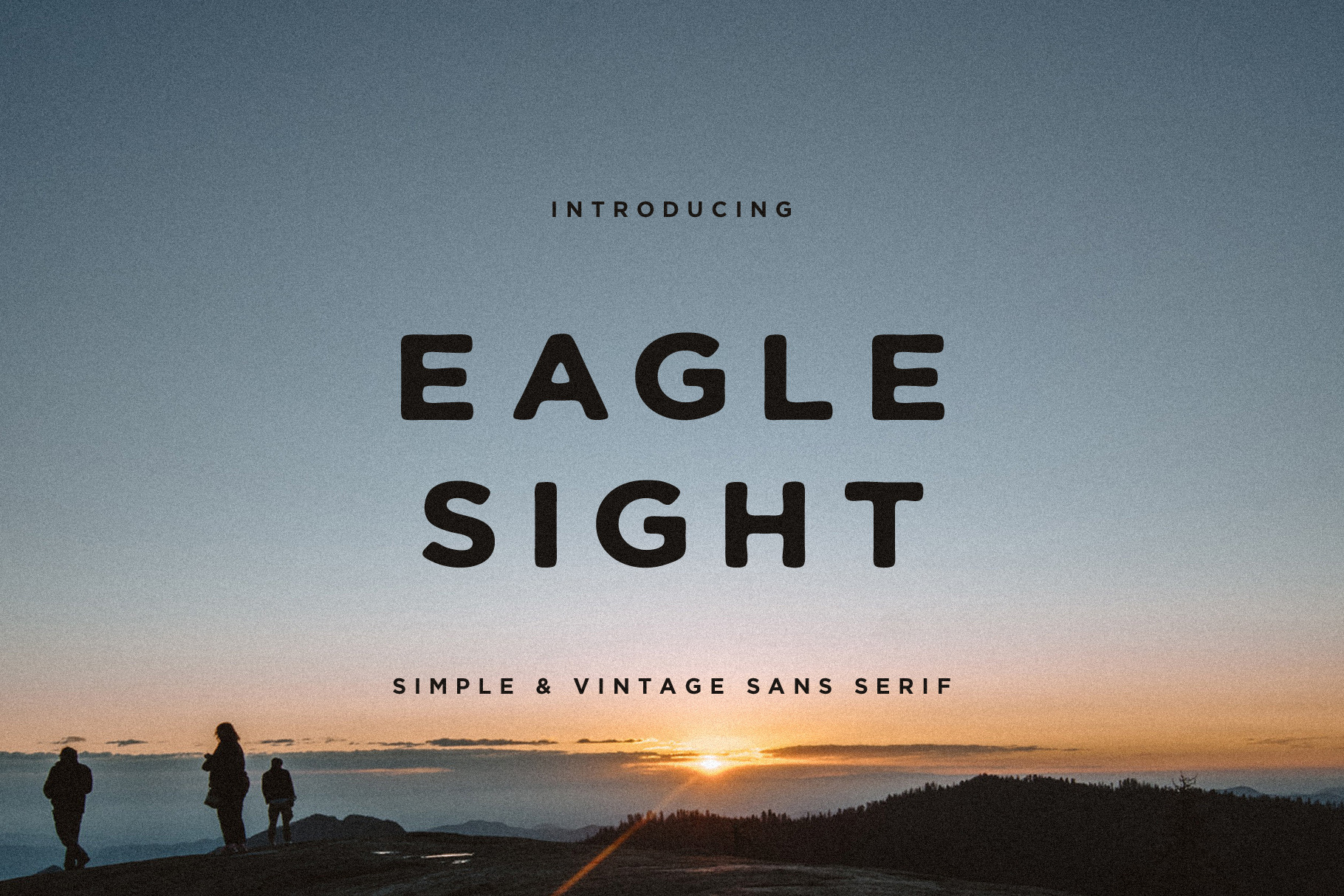
Eagle Sight Font + Extras
Eagle Sight is a simple & vintage hand drawn font with a clean look which is perfect for logo design, branding, mockups, etc. Eagle Sight can be paired with other vintage fonts.
Eagle Sight features:
- 3 Versions: Regular, Rough, Stamp
- Letters